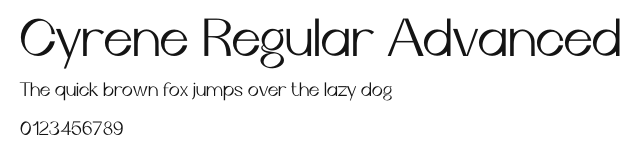
Cyrene Regular Advanced Preview
• Font Name: Cyrene Regular Advanced
• Full Font Name: Cyrene Regular Advanced
• Designer: Agostinelli Riccardo
• Manufacturer: Agostinelli Riccardo
About Cyrene Regular Advanced.otf
Cyrene Regular Advanced.otf is a modern, elegant sans-serif font designed for ultimate readability and visual harmony. Perfect for branding, headlines, web design, and print materials.